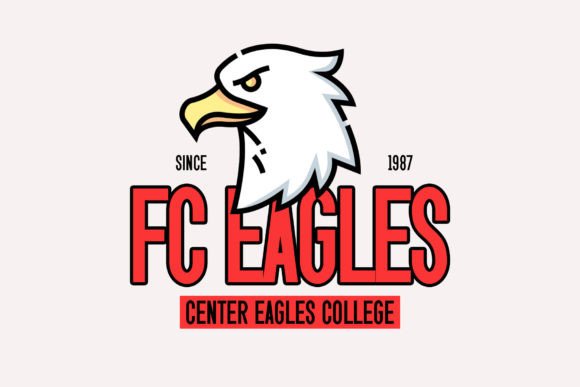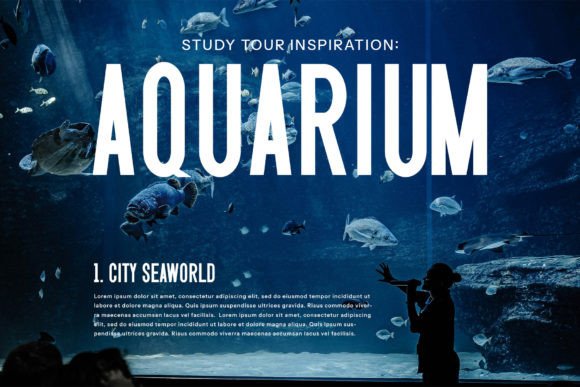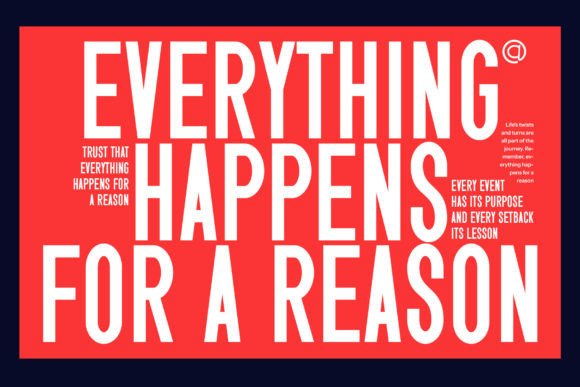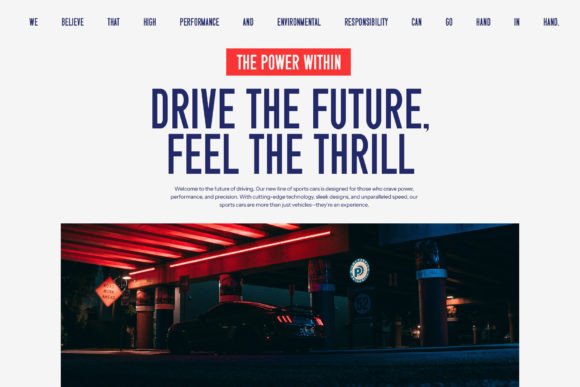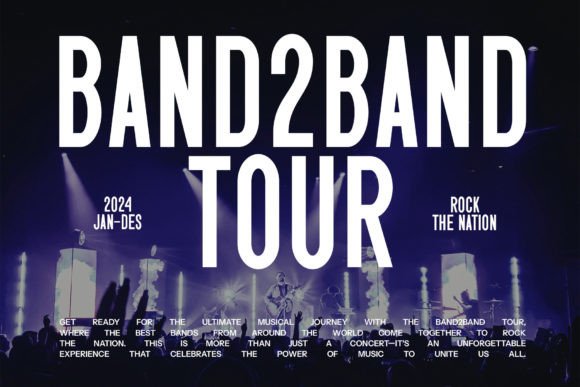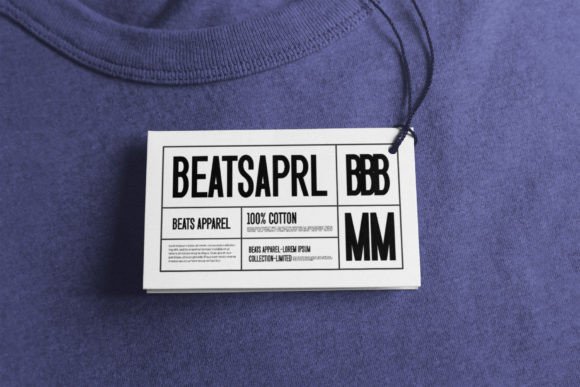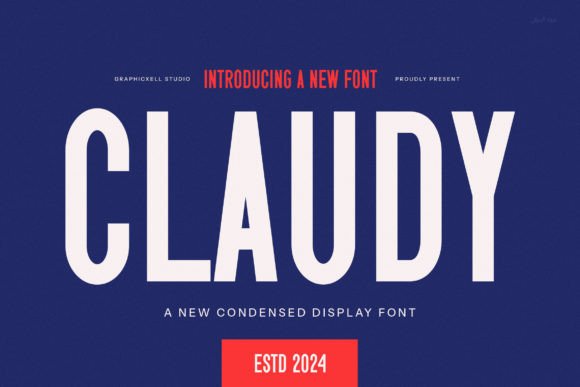
Introducing Claudy Font: The Ultimate Choice for Engaging Social Media Designs
In the world of digital design, typography plays a crucial role in capturing the audience’s attention and conveying the message effectively. With numerous font options available, designers and crafters are always on the lookout for unique and versatile fonts that can elevate their social media posts, stories, and ads. This is where Claudy Font comes into play – a condensed sans serif font that has been gaining popularity among designers and marketers alike.
What is Claudy Font?
Claudy Font is a modern, condensed sans serif font designed to help you create engaging and visually appealing social media content. Its sleek and clean design makes it perfect for catching the eye and encouraging interaction. Whether you’re a designer, marketer, or small business owner, Claudy Font is an excellent choice for creating stunning social media posts, stories, and ads that stand out from the crowd.
Key Features of Claudy Font
So, what makes Claudy Font an ideal choice for social media designs? Here are some of its key features:
• Condensed Design: Claudy Font has a condensed design that allows you to convey your message in a concise and impactful manner. Its compact letters make it perfect for social media posts, stories, and ads where space is limited.
• Sans Serif Style: The sans serif style of Claudy Font gives it a modern and clean look that’s perfect for digital designs. The font’s smooth lines and curves make it easy to read, even at smaller font sizes.
• Colorful Options: Claudy Font comes in a range of colorful options that can add a pop of color to your designs. From bold and bright colors to pastel shades, you can choose the perfect color to match your brand’s personality.
• Highly Versatile: Claudy Font is highly versatile and can be used for a wide range of design projects, from social media posts and stories to ads, flyers, and brochures.
Benefits of Using Claudy Font
Using Claudy Font in your social media designs can have numerous benefits. Here are some of the advantages of using this amazing font:
• Grabs Attention: The condensed design and colorful options of Claudy Font make it perfect for grabbing the audience’s attention and encouraging interaction.
• Improves Readability: The sans serif style and clean design of Claudy Font make it easy to read, even at smaller font sizes.
• Boosts Engagement: Claudy Font’s visually appealing design can help boost engagement and encourage users to interact with your content.
• Enhances Brand Identity: Using Claudy Font in your social media designs can help enhance your brand’s identity and make your content more recognizable.
Tips for Using Claudy Font Effectively
To get the most out of Claudy Font, here are some tips for using it effectively in your social media designs:
• Choose the Right Color: Select a color that matches your brand’s personality and resonates with your target audience.
• Experiment with Font Sizes: Try out different font sizes to create visual hierarchy and emphasize important information.
• Pair with Other Fonts: Pair Claudy Font with other fonts to create a unique and visually appealing design.
• Keep it Simple: Keep your design simple and avoid cluttering it with too much information or graphics.
Font Name Claudy Font
Author Graphicxell
Claudy Font is an excellent choice for designers and crafters looking to create engaging and visually appealing social media content. Its condensed sans serif design, colorful options, and versatility make it perfect for catching the eye and encouraging interaction. By following the tips outlined above, you can use Claudy Font effectively in your social media designs and take your digital marketing efforts to the next level.